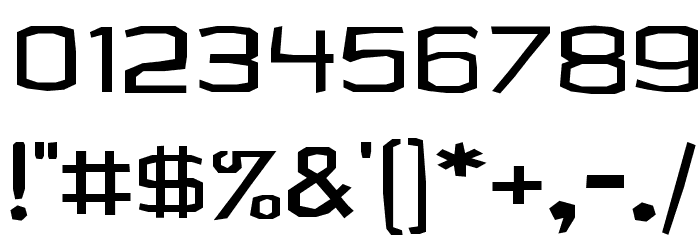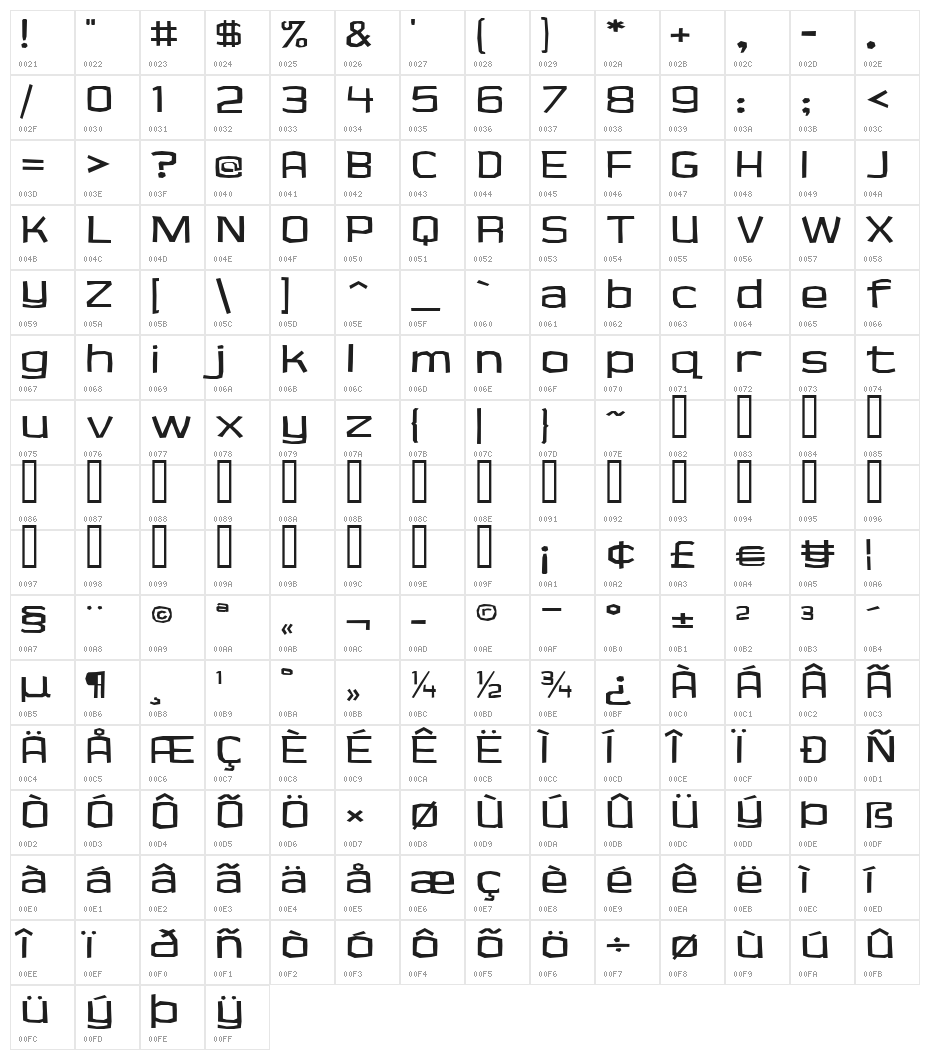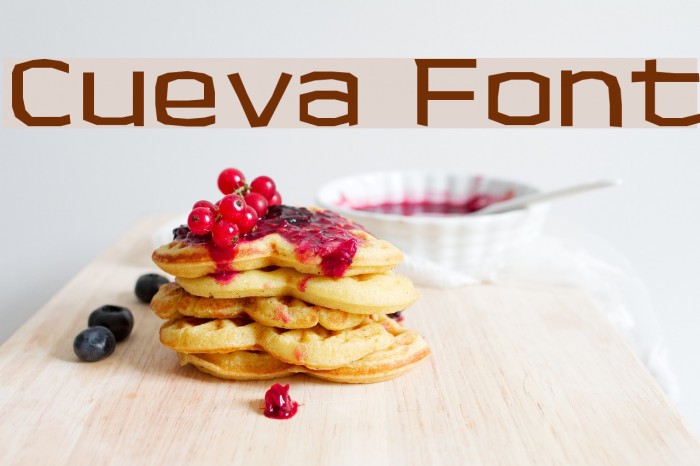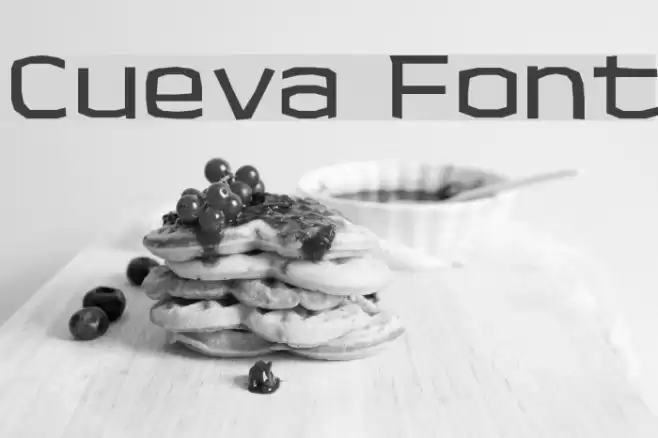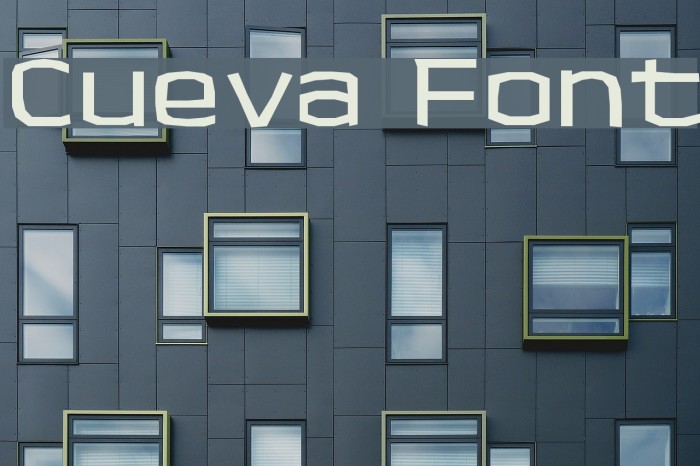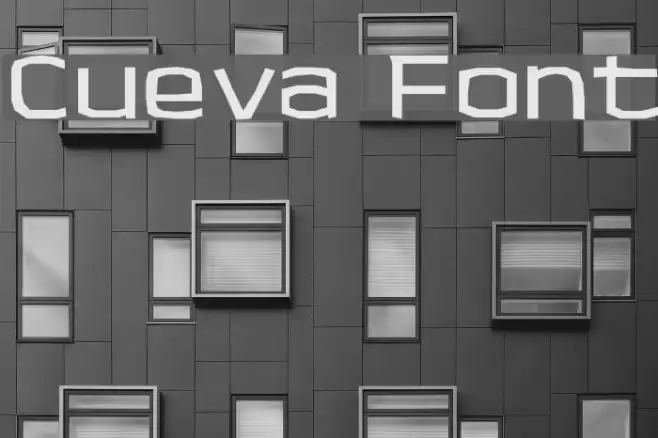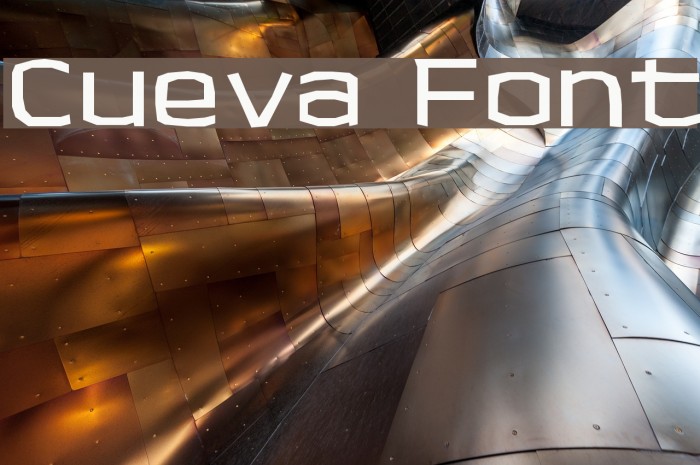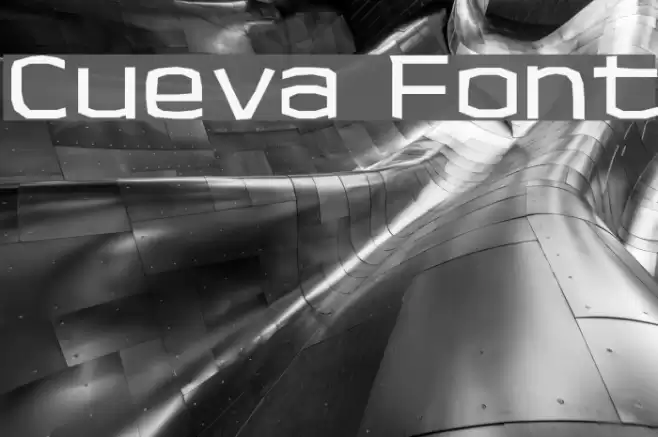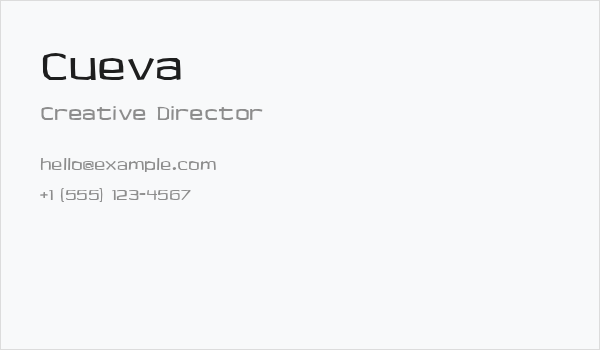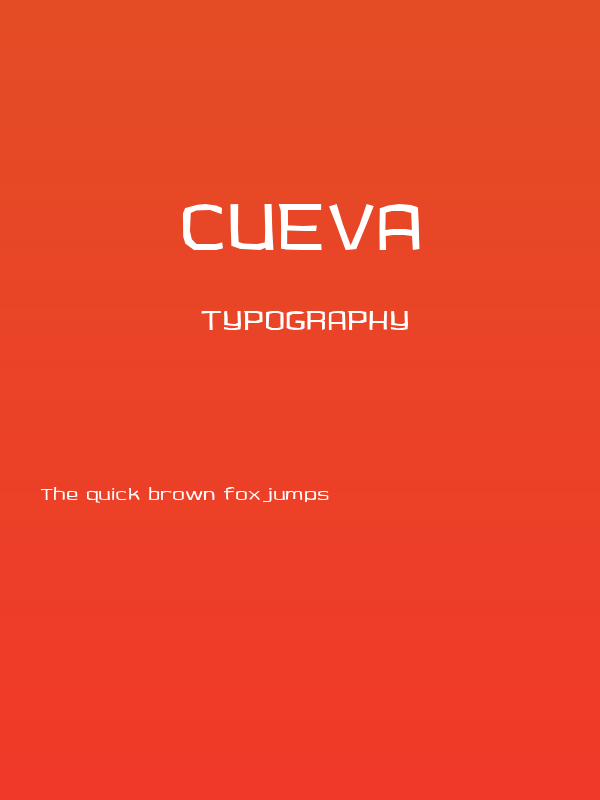
Cueva Font
Cueva Description
This font features a bold and geometric style with a modern twist. The characters are constructed with straight lines and sharp angles, giving it a futuristic and technical appearance. The uppercase letters are uniform in height, while the lowercase letters maintain a consistent baseline, enhancing readability. The numerals and special characters follow the same geometric design, ensuring a cohesive look across all text. The font's distinct style makes it suitable for projects that require a contemporary and edgy feel.
| Proposed Projects | Ideal for technology branding, video game titles, futuristic posters, and digital interfaces. |